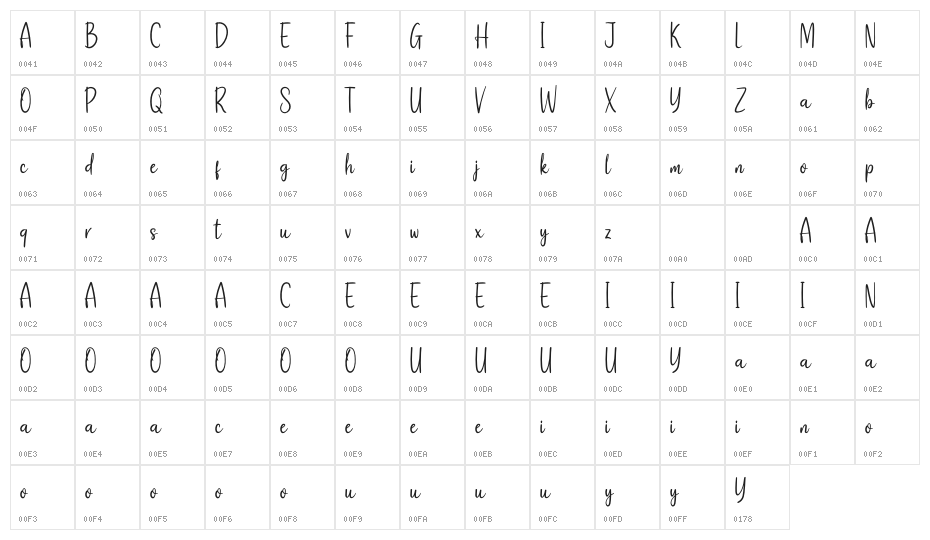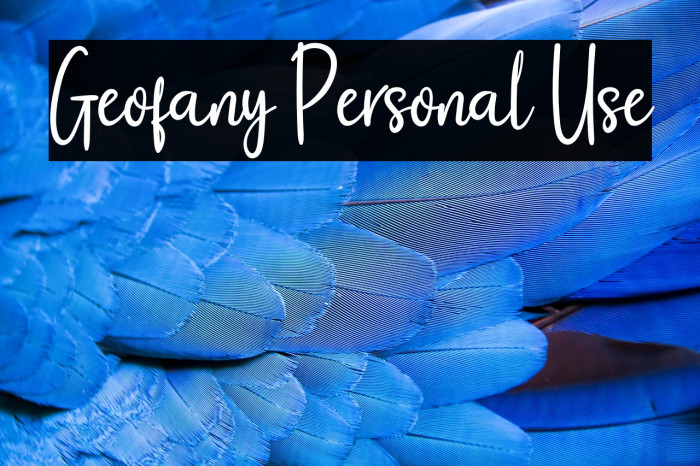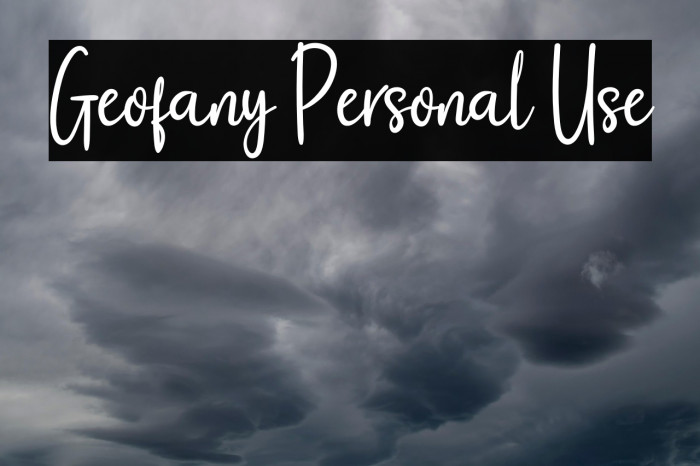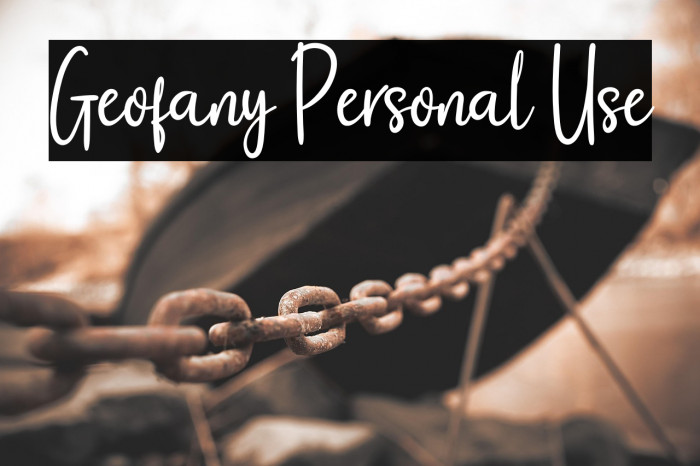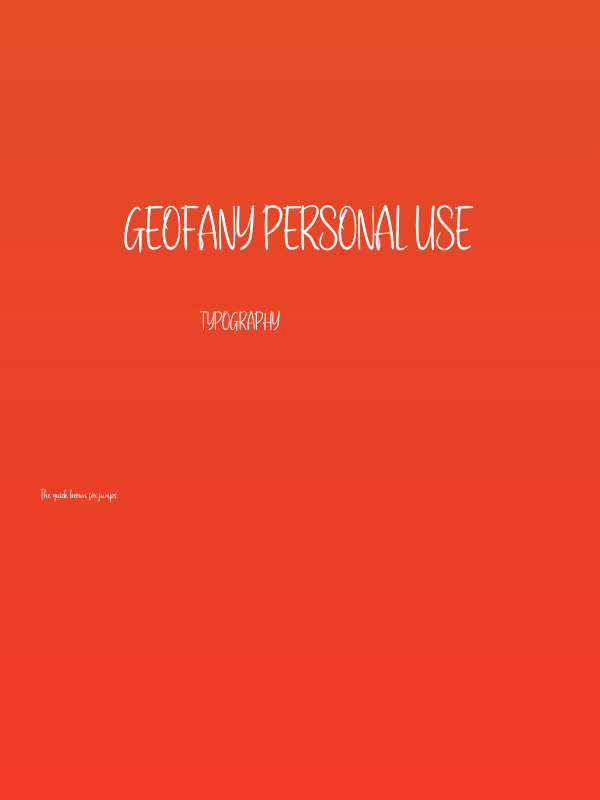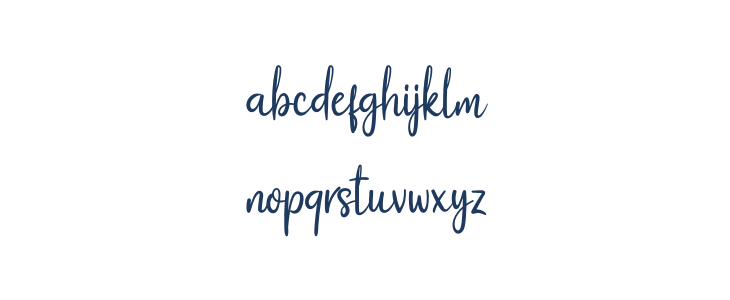
Geofany Personal Use Font
Geofany Personal Use Description
This font features a playful and casual handwritten style, characterized by its flowing and slightly irregular letterforms. The uppercase letters are tall and narrow, with a slight slant that adds a dynamic feel. The lowercase letters maintain a consistent style, with smooth curves and a natural, organic flow. The overall appearance is friendly and approachable, making it suitable for informal and creative projects. The font has a modern touch with a hint of whimsy, perfect for adding a personal touch to designs.
| Proposed Projects | Ideal for greeting cards, invitations, personal branding, and creative social media graphics. |